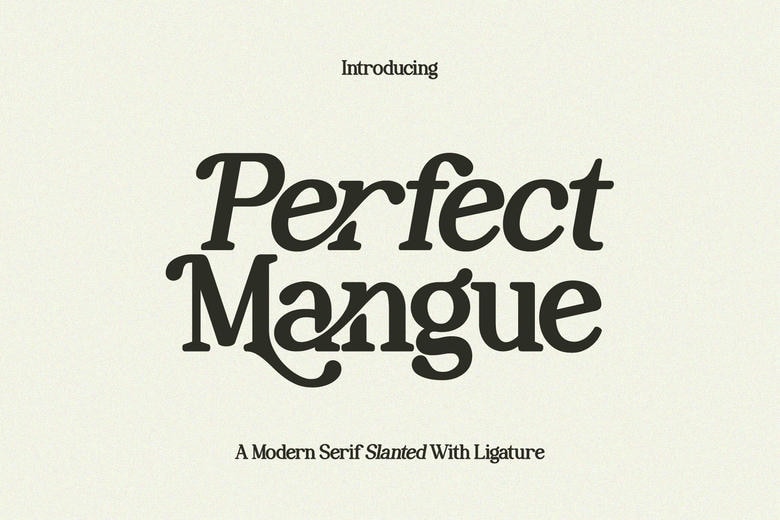
Perfect Mangue Font
Perfect Mangue is an elegant serif font with a slanted style that brings a classic yet modern feel. This font has a bold yet smooth curve letterform and is therefore meant to steal the show in any design.
The font is ideal in luxury branding, editorial, fashion logos, magazine covers, wedding invitations and social media. The combination of the slant of the letters and the subtle serif details give a dynamic, professional, and artistic impression at the same time.
Perfect Mangue Serif Font